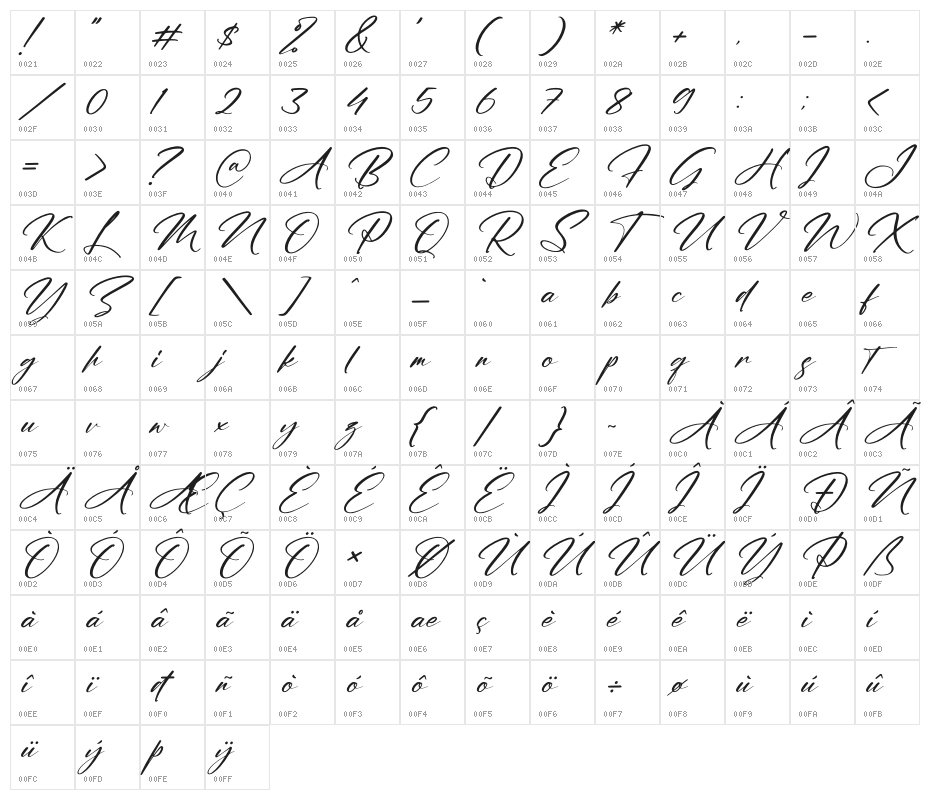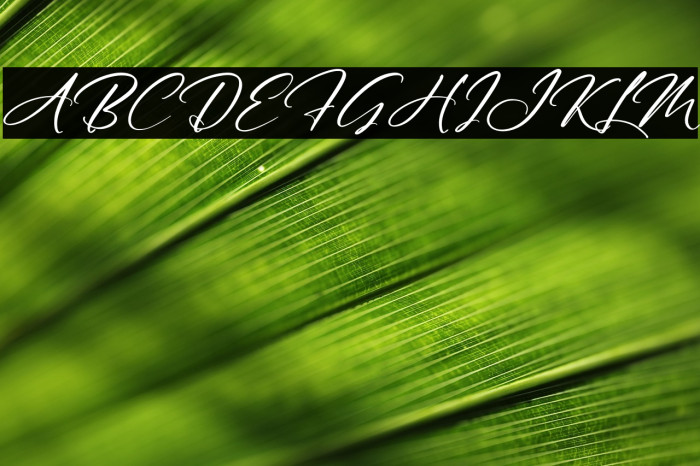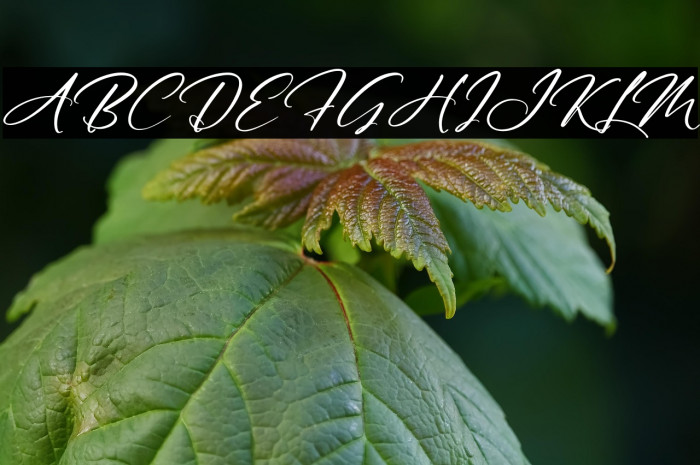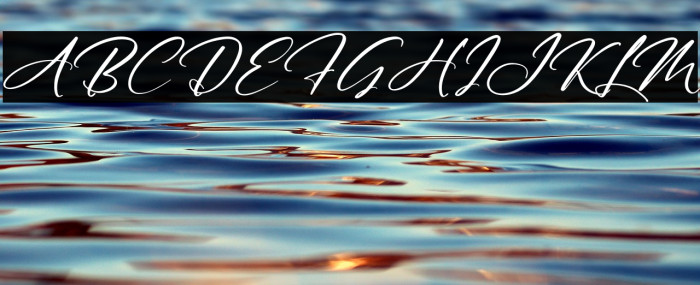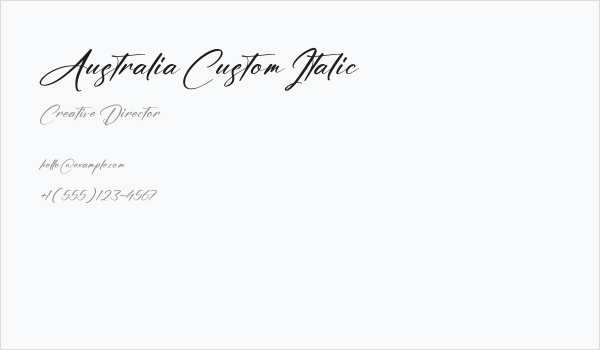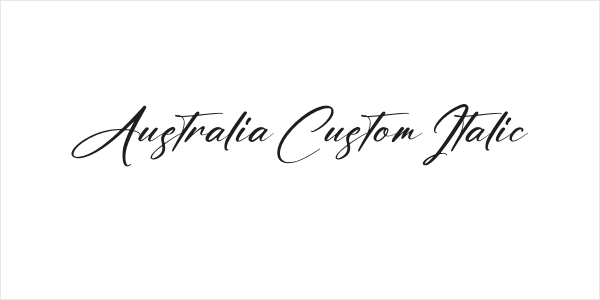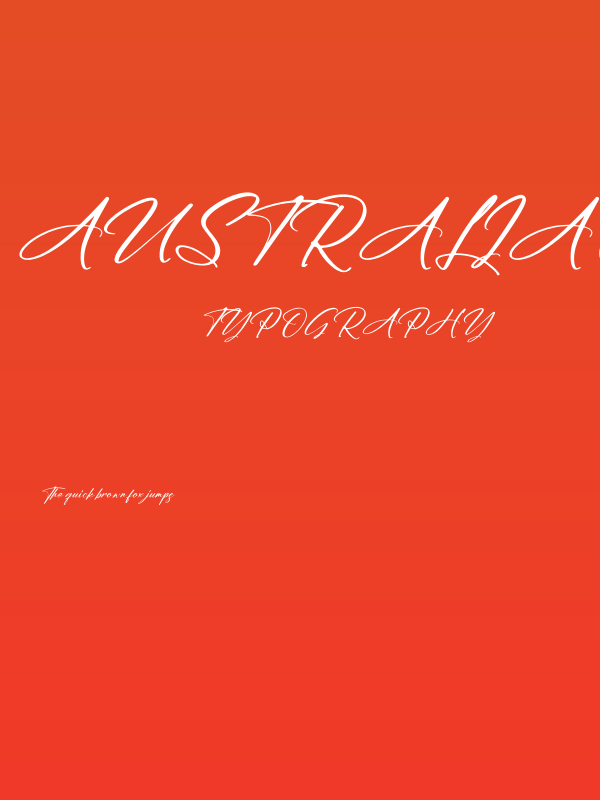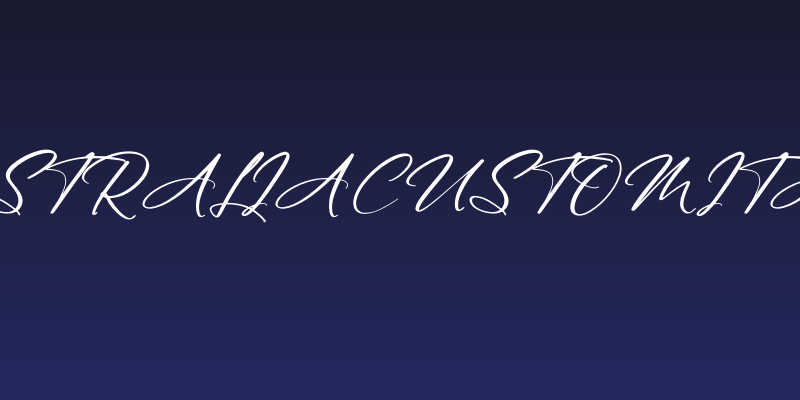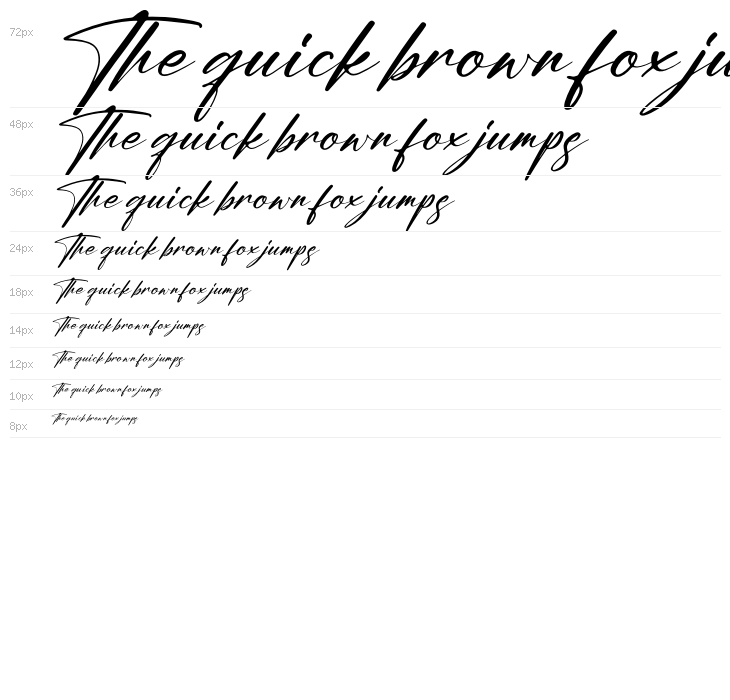
Australia Custom Italic Font
Australia Custom Italic Description
This font exhibits a flowing, cursive style with an elegant and sophisticated appearance. The letters are connected, creating a seamless and continuous script that mimics natural handwriting. The uppercase letters are slightly more elaborate, with flourishes that add a touch of flair, while the lowercase letters maintain a consistent rhythm and balance. The numerals and special characters are designed to match the overall aesthetic, ensuring a cohesive look across all text elements. This font's italic nature enhances its dynamic and graceful feel, making it suitable for projects that require a personal and artistic touch.
| Overall Style | Elegant, Artistic |
| Proposed Projects | Ideal for wedding invitations, greeting cards, personal branding, and artistic projects requiring a handwritten touch. |